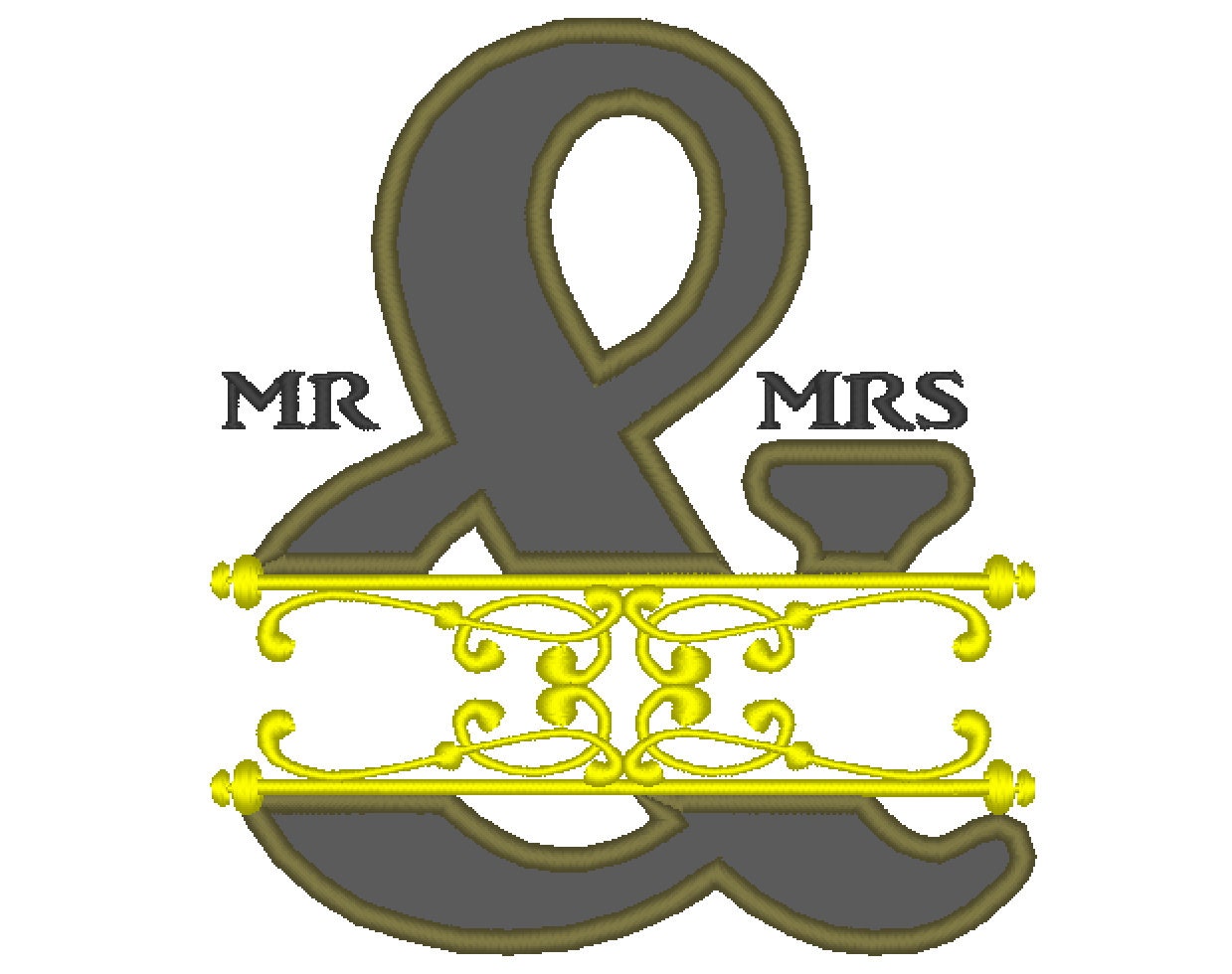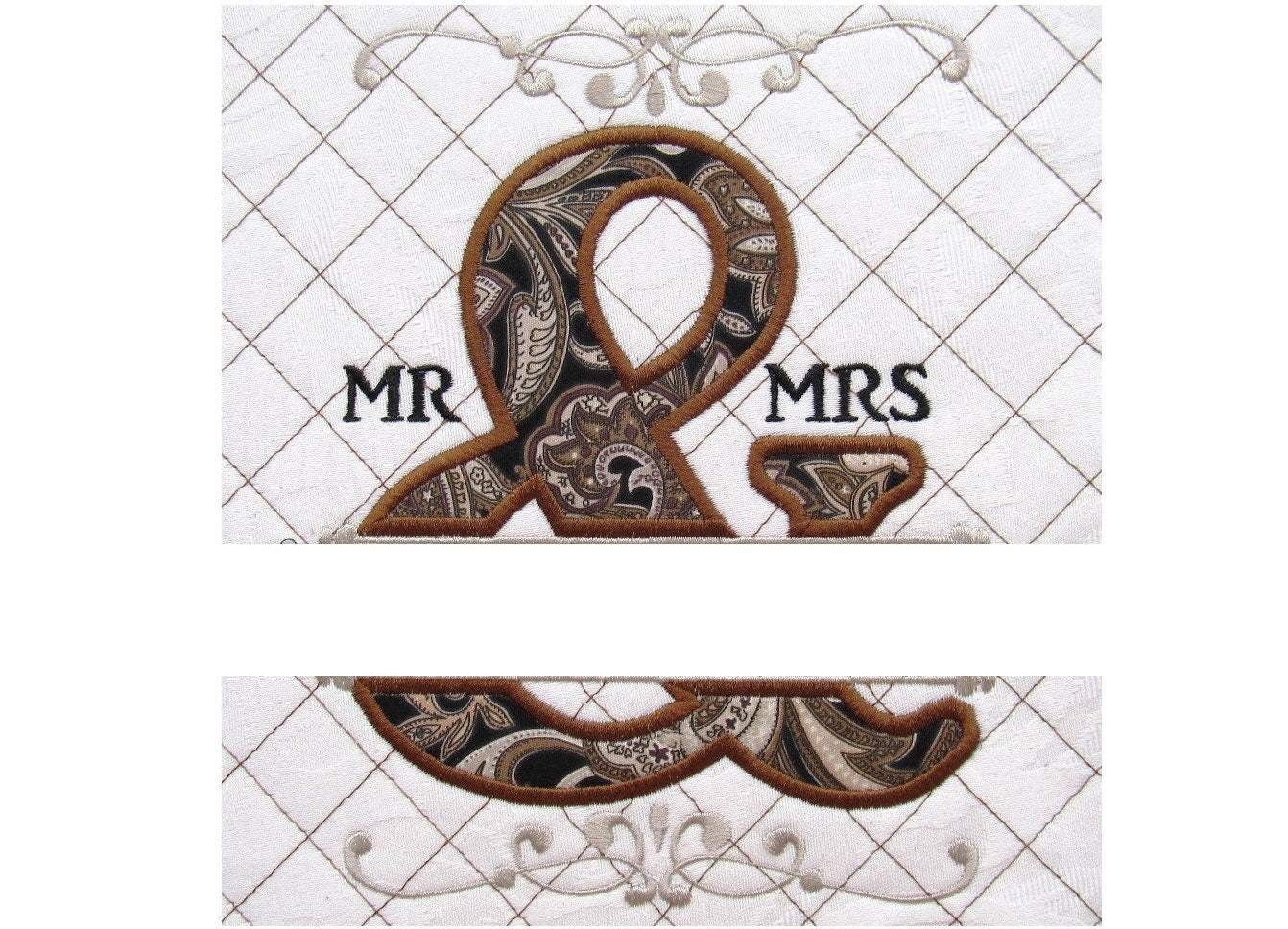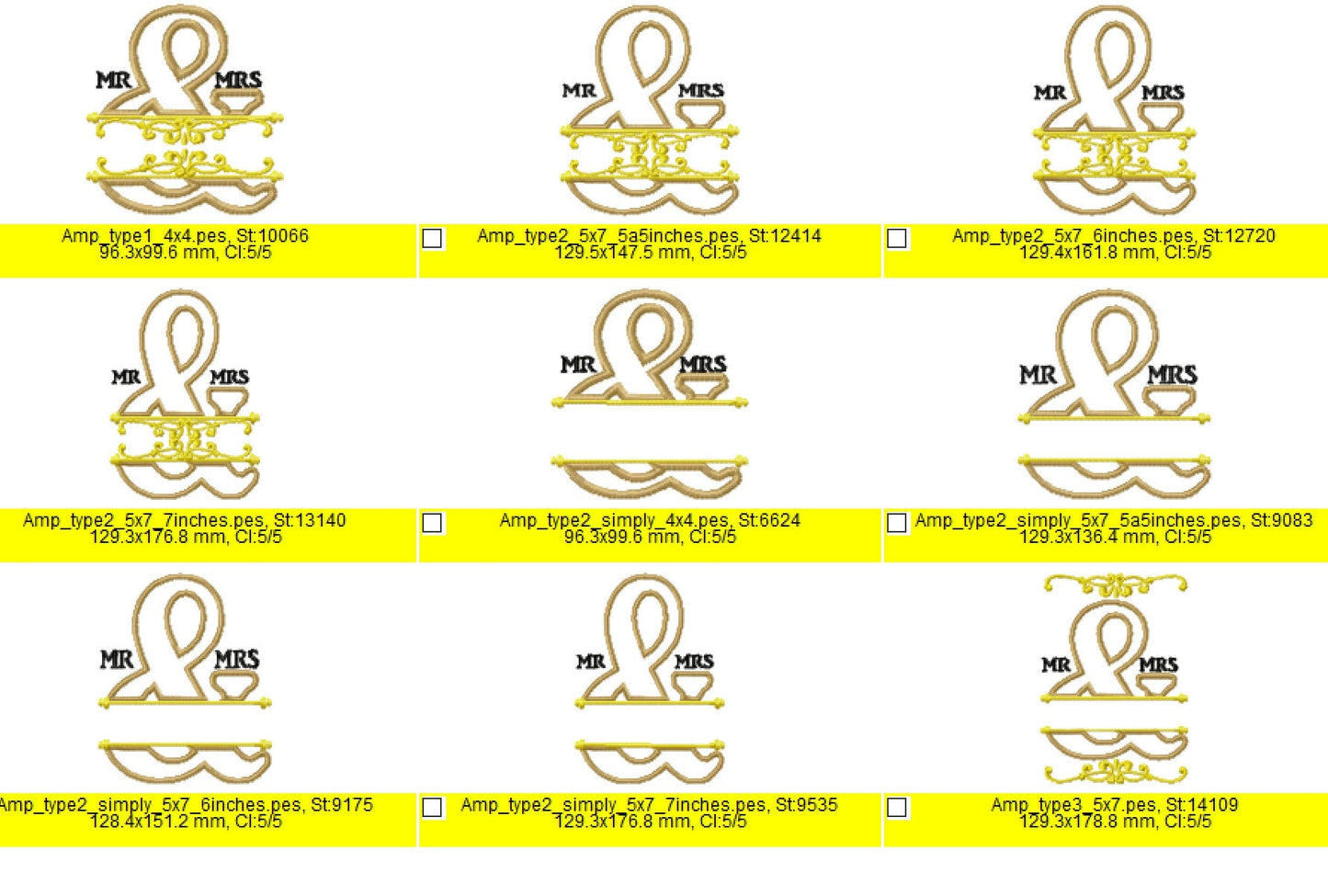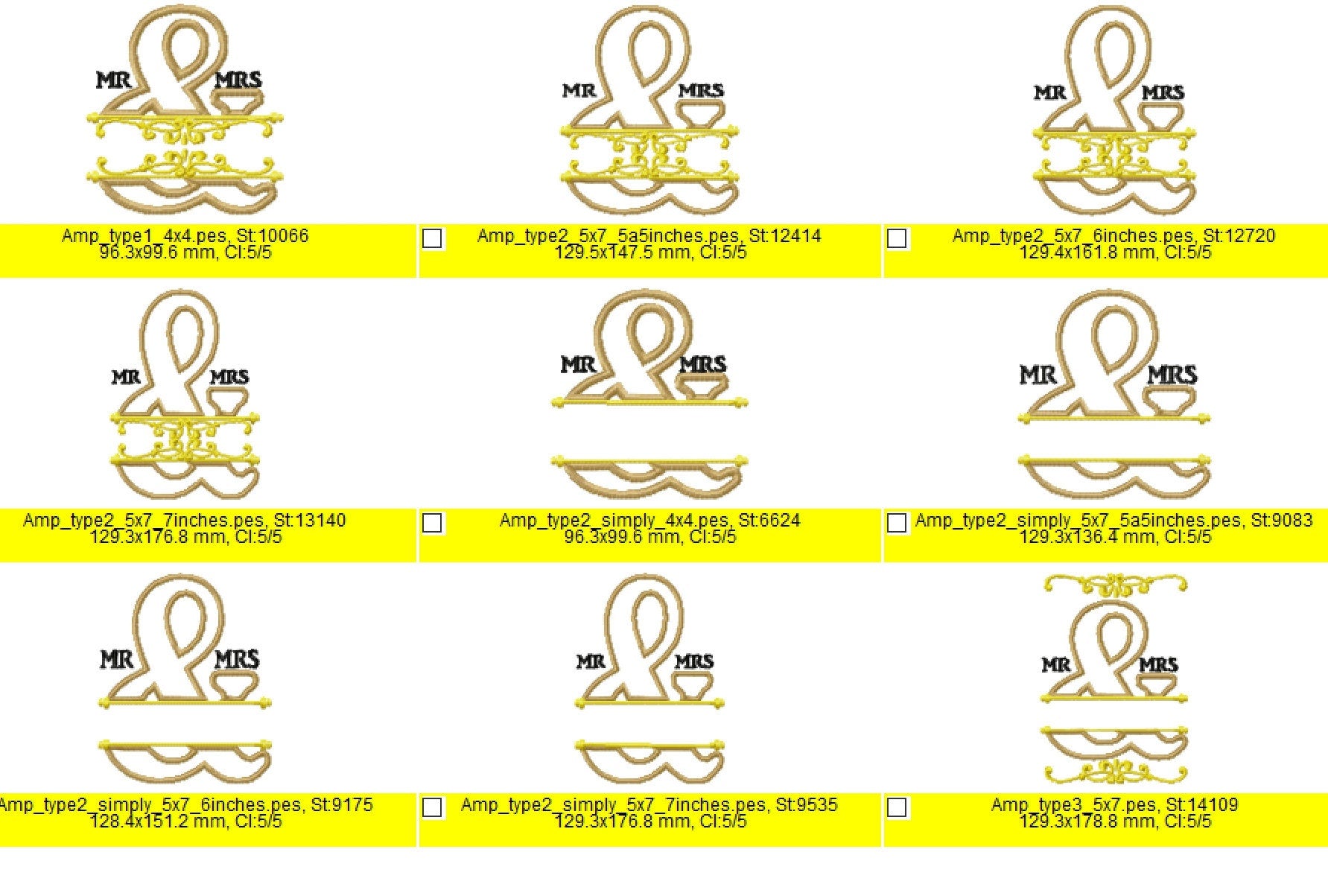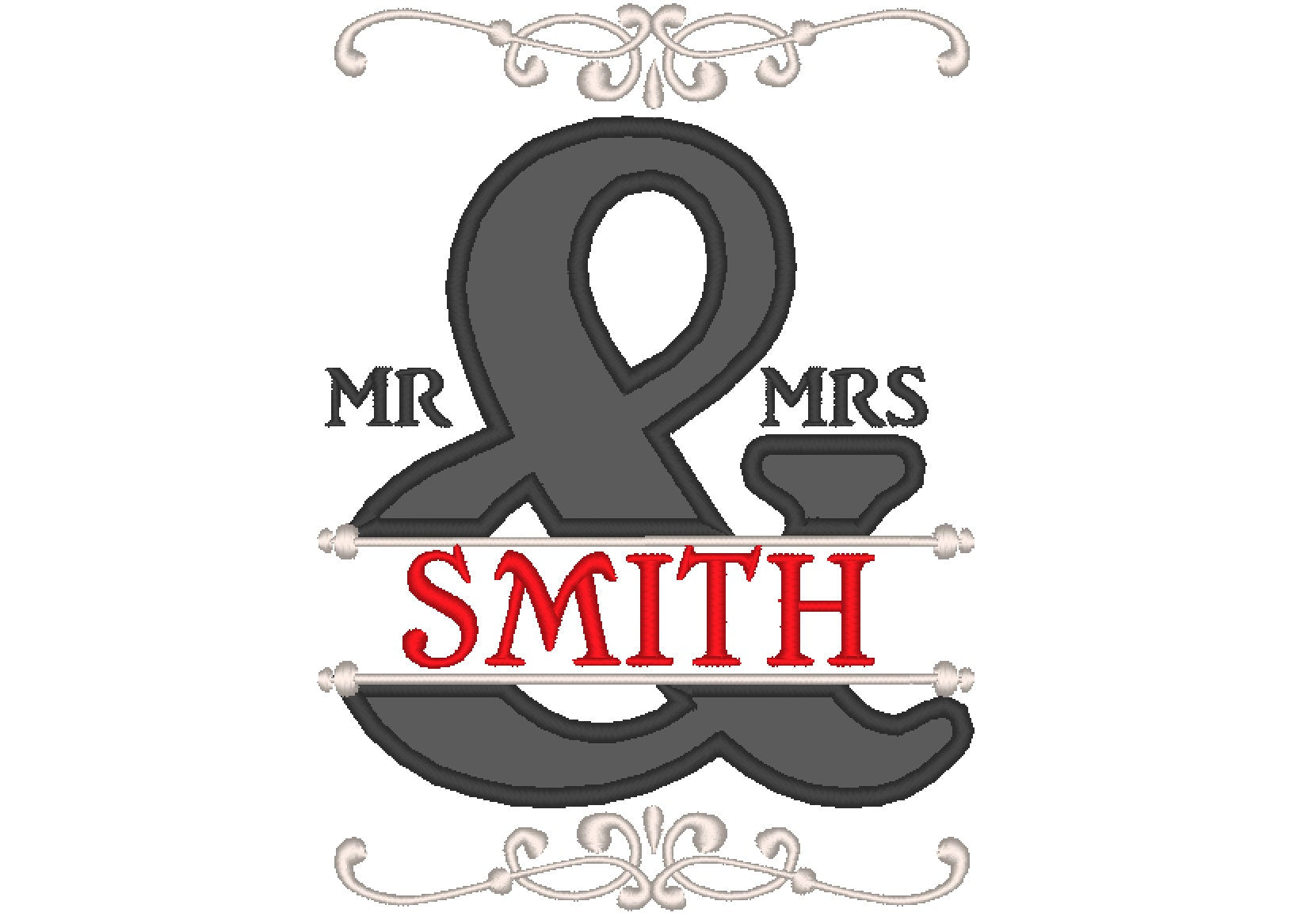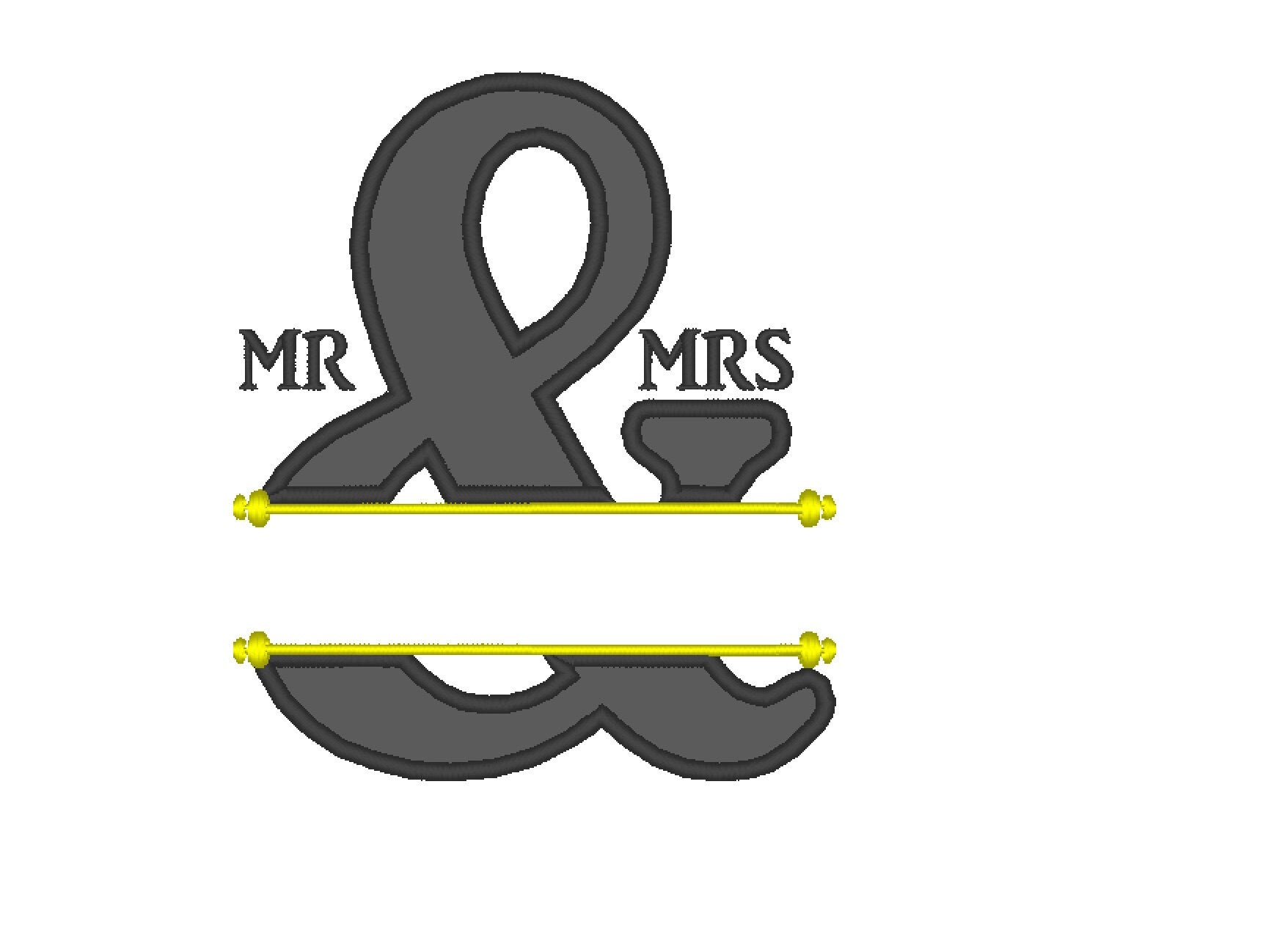
Split ampersand
Split ampersand with inner decoration
Split ampersand with frame decoration
Added also the Typographic Ornament Line to complete your project
In this set also included 6 Sizes of the small font shown on the picture.
Sizes will fit into the split in the applique letters